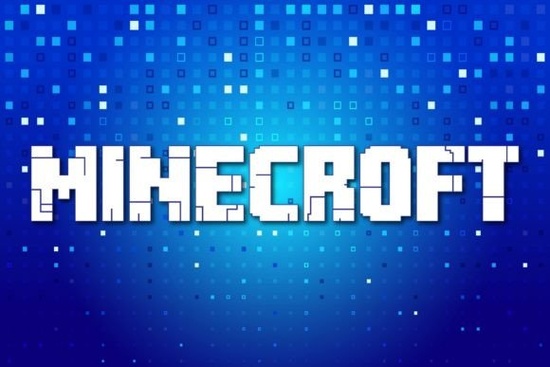
Minecroft Font is a standout choice for anyone looking to add a touch of whimsy and energy to their design projects. This playful display font brings a sense of fun and creativity that can elevate everything from social media graphics to print materials. Whether you're a designer, crafter, or small business owner, Minecroft offers a unique visual style that stands out without being overwhelming.
Designed with bold and dynamic letterforms, Minecroft captures the essence of playfulness while maintaining readability. Its adventurous spirit makes it perfect for projects that need a lively and imaginative flair. From logos to packaging, this font can bring a fresh and vibrant look to your creative work.
What Makes Minecroft Font Unique?
Minecroft Font distinguishes itself through its expressive and lively character. Unlike more traditional fonts, it adds a sense of movement and joy that can make your designs feel more engaging. The font’s playful nature makes it ideal for branding, marketing materials, and creative projects that aim to connect with a younger or more energetic audience.
If you're looking for a font that can bring a sense of fun to your work, Minecroft is a great option. It works well in both digital and print formats, making it versatile for a wide range of applications. Its bold strokes and dynamic shapes help it stand out while still maintaining clarity and legibility.
Best Uses for Minecroft Font
This font shines in projects that benefit from a whimsical and lively aesthetic. It's particularly effective for branding elements like logos, banners, and social media posts. For example, if you're creating content for a children's product or a creative workshop, Minecroft can help convey the right tone and energy.
It also works well for print-on-demand items such as t-shirts, mugs, and stickers. The font’s bold and eye-catching design ensures that your message is clear and visually appealing. Whether you're designing for a small business or a personal project, Minecroft can add a unique and memorable touch.
How to Use Minecroft Font Effectively
To get the most out of Minecroft Font, consider pairing it with simpler typefaces for balance. Using it as a headline or title can draw attention without overwhelming the rest of your design. For body text, it's best to use it sparingly or in combination with other fonts that provide contrast.
For those interested in similar styles, Minecroft Font is a great starting point. It’s designed to be both functional and fun, making it a valuable addition to any designer’s toolkit.
Whether you're working on a personal project or a professional design, Minecroft Font provides a fresh and energetic way to express your ideas. Its playful yet readable style makes it a versatile choice for a wide range of creative needs.
- Use Minecroft for headlines and titles to add visual interest.
- Pair it with simpler fonts for balance and contrast.
- Experiment with different sizes and spacing to find the best look for your project.